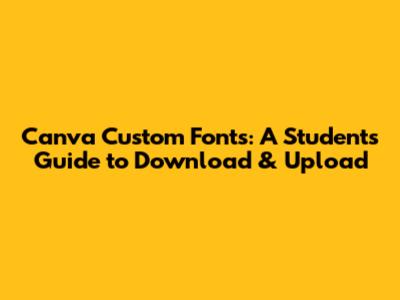
Hey there, design-savvy students! Ever found yourself scrolling through Canva's awesome font library, but still wishing you could use that one specific font you absolutely adore for your school project, club flyer, or personal branding? You're not alone, guys! Many Canva student users often ask about downloading custom fonts for Canva and how to upload fonts to Canva to make their designs truly pop. It’s a common challenge, especially when you're trying to stand out from the crowd and give your presentations, essays, or social media graphics that unique, professional edge. This comprehensive guide is going to walk you through everything you need to know, from understanding Canva's font system to finding, downloading, and, yes, even uploading your own custom fonts so your creative vision can come to life without a hitch. We'll dive deep into both the free and Pro aspects, ensuring you get the most value out of your Canva experience, whether you're working on a tight budget or have access to premium features through an educational plan. Get ready to elevate your design game and leave a lasting impression with perfectly chosen typography!
Cracking the Code: Understanding Canva's Font System for Students
Alright, let's kick things off by understanding how Canva handles fonts, especially for us students who are often juggling multiple projects and maybe even a tighter budget. When you first dive into Canva, you're greeted with an expansive built-in font library that’s pretty incredible. Seriously, Canva offers a vast array of fonts, from classic serifs and clean sans-serifs to funky display fonts and elegant scripts. For many students, this library is more than enough to create stunning designs for essays, presentations, posters, social media, and more. It's super convenient, easy to browse, and the fonts are readily available with just a click. However, there comes a point for many of us, particularly when we're trying to create a specific brand identity for a student club, a personal portfolio, or a unique project that demands a very particular aesthetic, where the built-in options just don't quite cut it. This is where the desire to download custom fonts for Canva really kicks in. We're talking about that specific font you saw on a cool website, the one your professor recommended, or the one you designed yourself – you know, the one that makes your project feel uniquely you.
So, why would a Canva student need custom fonts? Well, guys, it boils down to individuality and consistency. Imagine you're designing a logo for your new student startup or creating a series of promotional materials for a campus event. Using a custom font ensures your brand is instantly recognizable and distinct from every other design utilizing Canva's standard fare. It adds a layer of professionalism and personal flair that can make a huge difference in how your work is perceived. Furthermore, if you're working on a project that requires adherence to specific branding guidelines (perhaps for a university department or an external client), having the ability to upload that exact font is non-negotiable. While Canva's free tier provides immense value, it's important to note a key distinction right off the bat: the direct font upload feature is primarily a perk of Canva Pro accounts. This might sound like a bummer if you're on a free plan, but don't sweat it! We'll explore workarounds later in this guide. For those with educational access to Canva Pro, or if you're considering upgrading, understanding this feature is crucial. A Canva Pro subscription (which many students can get at a discounted or even free rate through educational programs – always check if your institution offers this!) unlocks a whole new world of creative possibilities, including the ability to build out your Brand Kit with specific colors, logos, and, yes, those coveted custom fonts. This feature is a game-changer for maintaining consistency across all your academic and personal design projects. Understanding these fundamental aspects of Canva's font ecosystem is the first step in leveraging its full power for your student design needs.
The Nitty-Gritty: How to Download and Find Custom Fonts
Alright, now that we've chatted about why you might want custom fonts in Canva, let's get into the exciting part: finding and downloading fonts! This is where you become a font explorer, digging through countless options to find the perfect typeface for your next big project. There are tons of amazing places online where you can find fonts, both free and premium, each with its own vibe and collection. For the Canva student on a budget, Google Fonts is an absolute goldmine. It's completely free, offers a huge variety of high-quality fonts, and they're all open-source, meaning you can use them for personal and commercial projects without any licensing worries. Seriously, guys, check it out – it’s a fantastic starting point. Other free font havens include DaFont and Font Squirrel. DaFont is famous for its massive collection of diverse styles, often including quirky and unique options, while Font Squirrel curates high-quality, free-for-commercial-use fonts that are often slightly more professional. When browsing these sites, pay close attention to the licensing information. While many fonts are free for personal use, if your project might ever see the light of day commercially (even if it's just a student project that gets widely shared), you’ll want to ensure it's licensed for commercial use. This is a crucial step that many overlook, so always double-check!
Beyond the freebies, if you've got a bit of wiggle room in your budget or access to design resources, Adobe Fonts (included with an Adobe Creative Cloud subscription, which many students get at a discount) and marketplaces like Creative Market offer an incredible selection of premium, professionally designed fonts. These often come with more comprehensive character sets and robust design, but they do come at a cost. Regardless of where you download, you’ll encounter different font file types. The most common ones you'll see are TTF (TrueType Font) and OTF (OpenType Font). Both are widely supported and generally work well. Sometimes you might also encounter WOFF (Web Open Font Format), but these are primarily for web use and less common for direct uploading to design software. When you download a font, it usually comes as a zipped folder. You'll need to unzip it, and inside, you’ll find the TTF or OTF files. For Windows users, you can usually right-click the font file and select